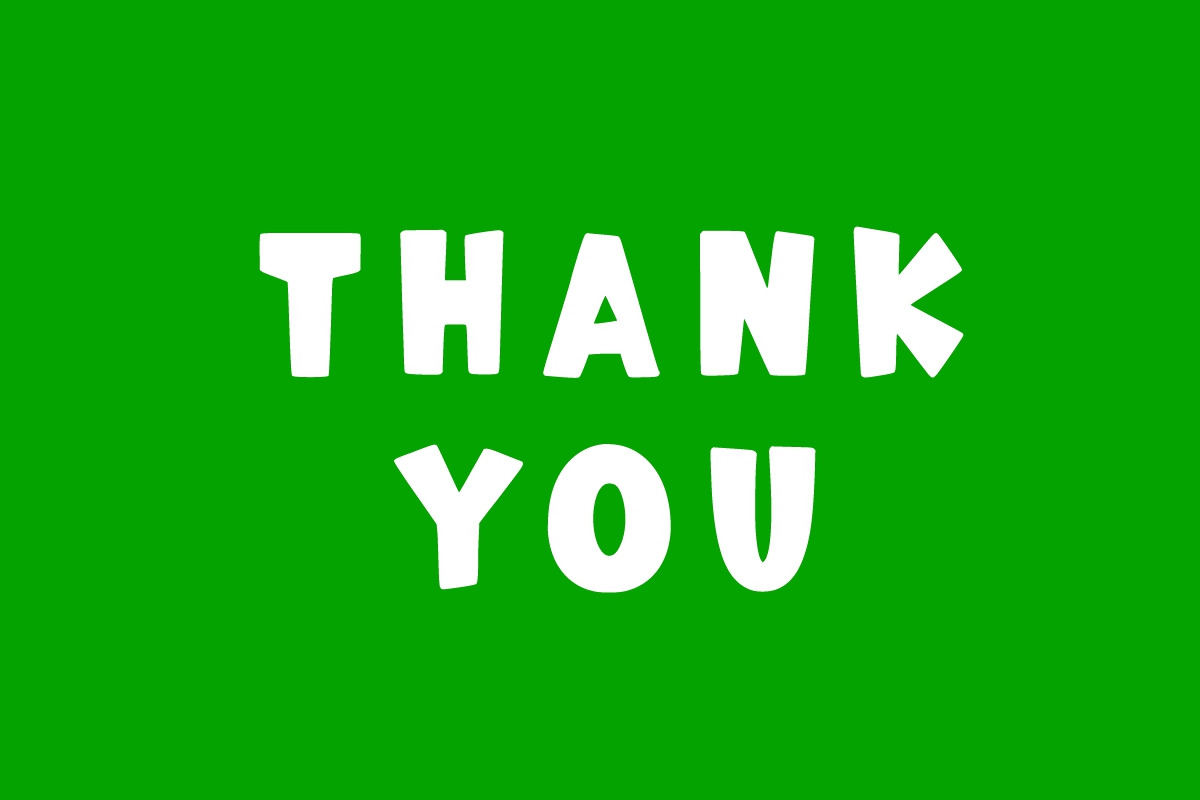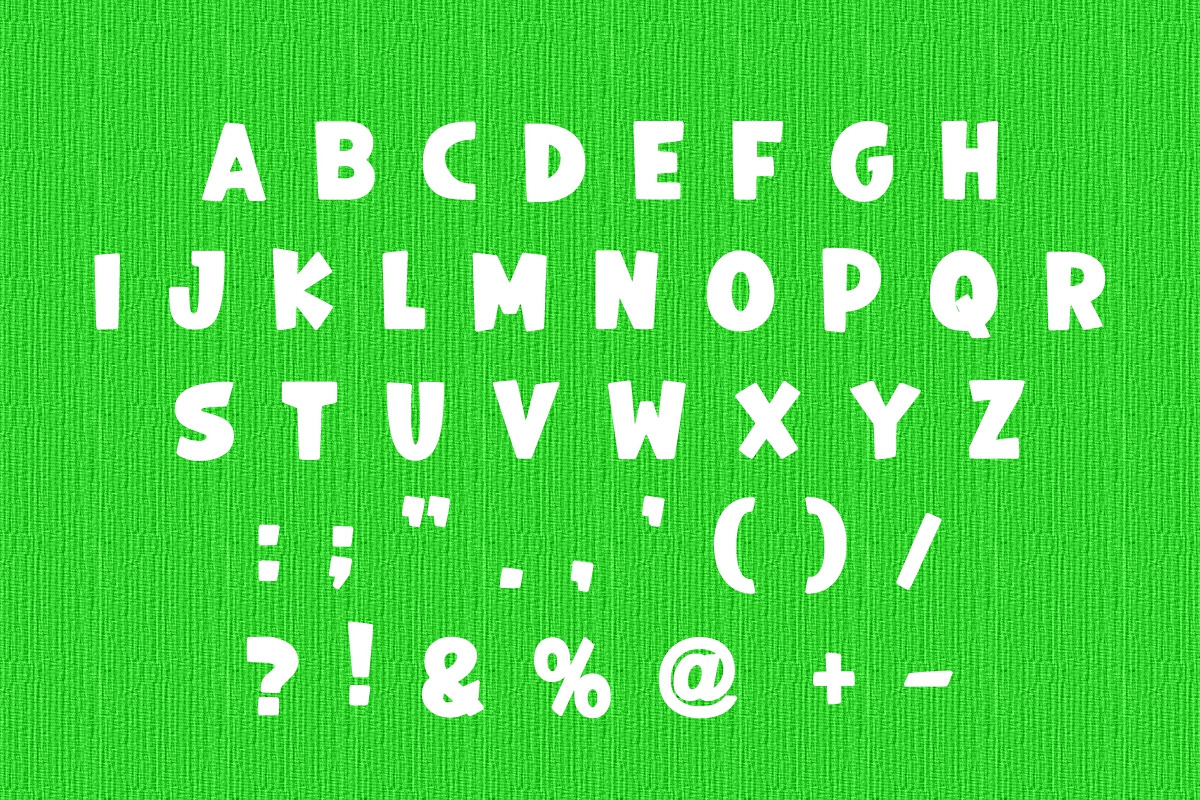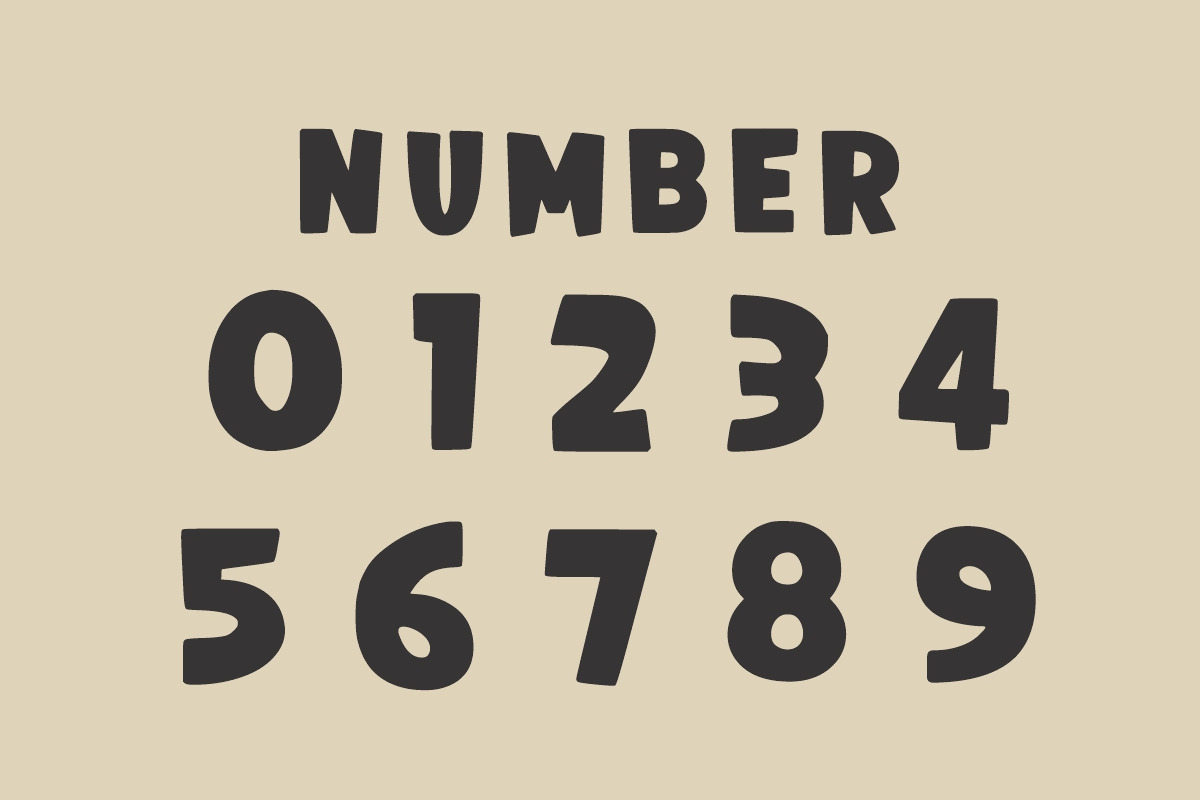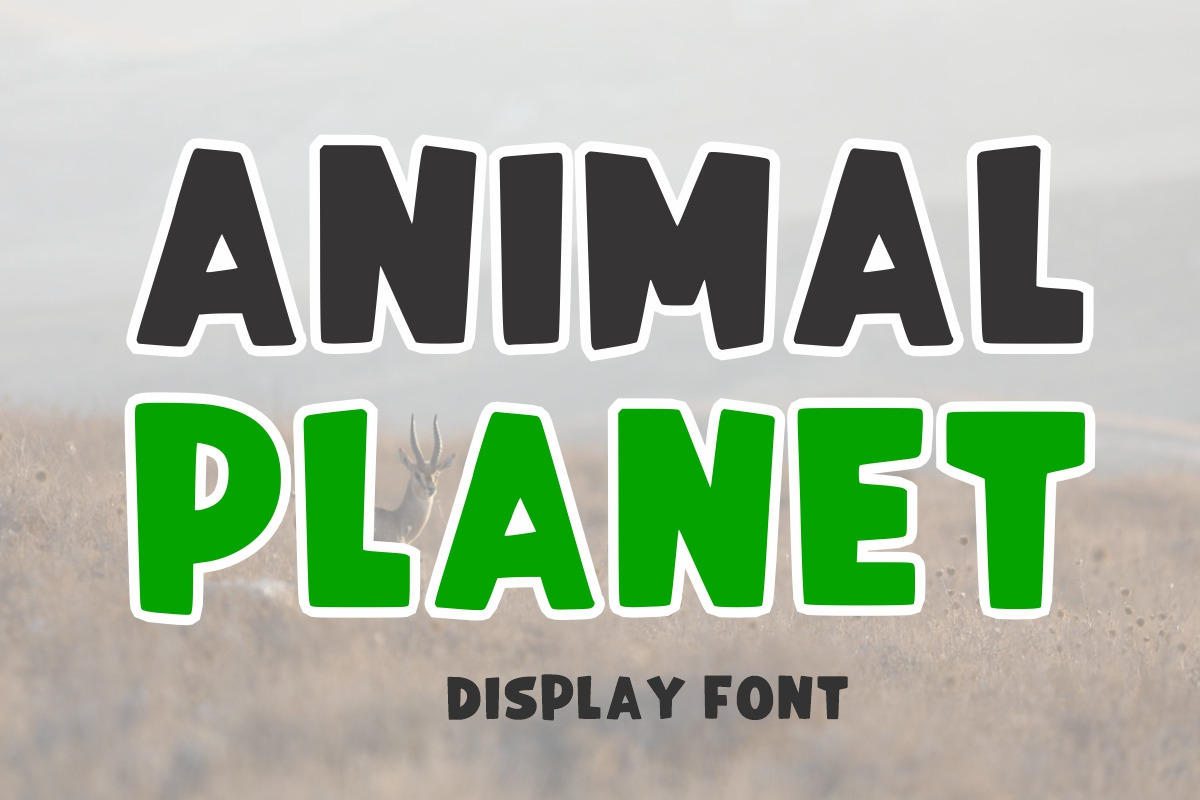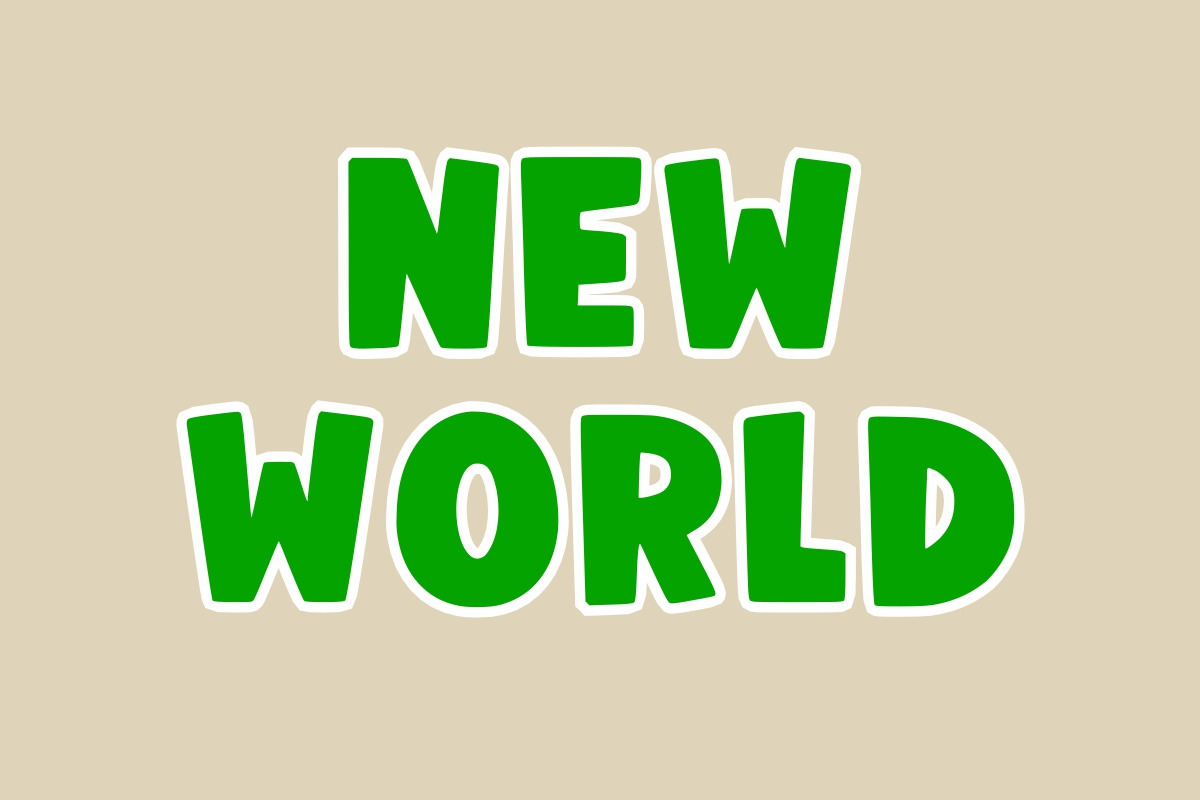
Animal Planet Display Font
Animal Planet is a childish, easy-to-read display font that conveys impeccable friendliness. Whether you’re using it for crafts, digital designs, presentations, or making greeting cards, this font has the potential to become your favorite go-to font, no matter the occasion! It is suitable for any product packaging, invitations, quotes, t-shirts, labels, posters, logos, and everything you wish to develop!